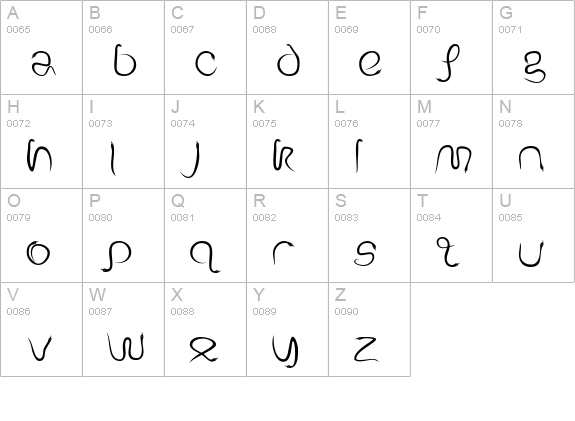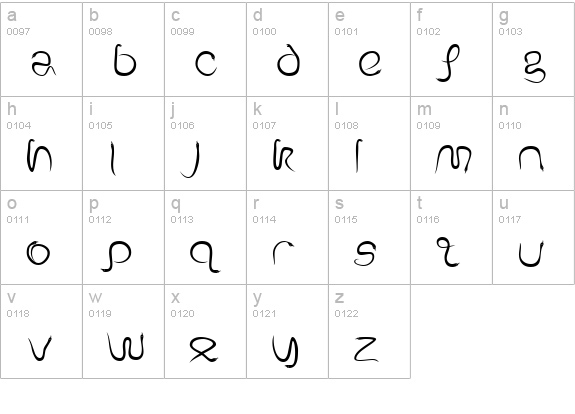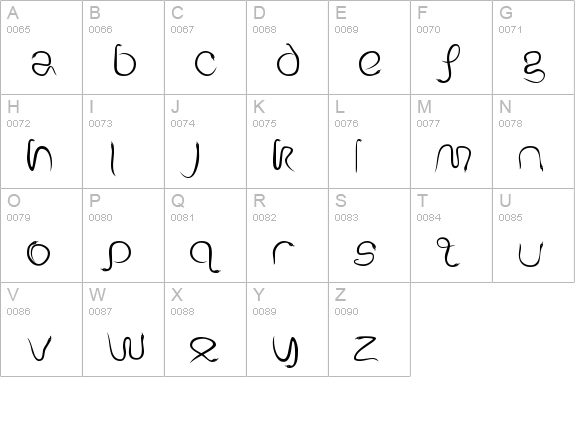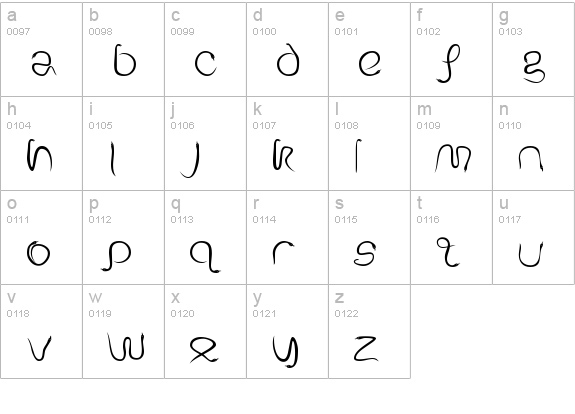
EdenDisplay Font Details
EdenDisplay font is a captivating typeface that effortlessly combines elegance with a touch of modernity. Its unique design and attention to detail make it an ideal choice for projects that require a sophisticated and stylish appearance. The letterforms of EdenDisplay font are beautifully crafted, with clean lines and smooth curves that exude a sense of refinement. Each character is meticulously designed to ensure legibility and readability, making it perfect for both display and headline purposes. One of the most appealing aspects of EdenDisplay font is that it is available for free. Yes, you read that right! This stunning typeface can be freely downloaded from FontsMarket.com, your go-to source for high-quality fonts. Whether you are a professional designer, a student, or simply someone looking to add a touch of elegance to your personal projects, EdenDisplay font offers a fantastic opportunity to enhance your creations without breaking the bank. With its versatility and timeless appeal, EdenDisplay font can be used in a wide range of applications, including brand identity, packaging design, editorial layouts, posters, and much more. Its ability to effortlessly capture attention and convey a sense of sophistication makes it a go-to choice for designers who want to make a lasting impression. So why wait? Take advantage of the opportunity to download EdenDisplay font for free at FontsMarket.com and unlock a world of creative possibilities. Elevate your designs, impress your audience, and showcase your impeccable taste with this outstanding typeface. Experience the beauty and elegance of EdenDisplay font today!